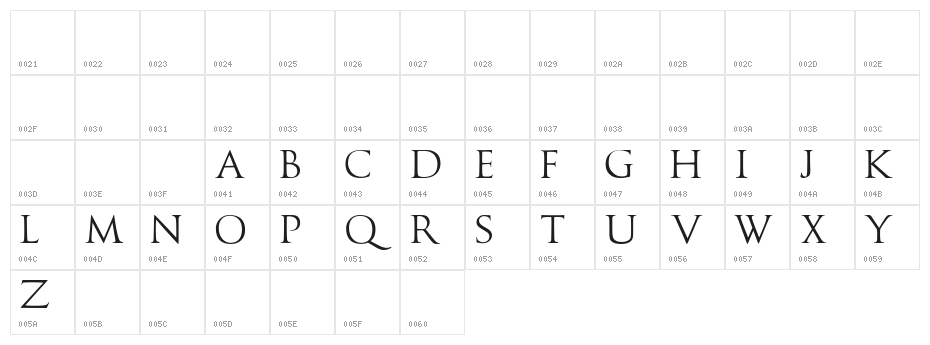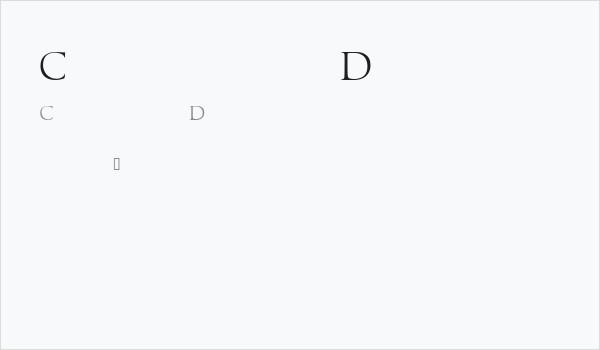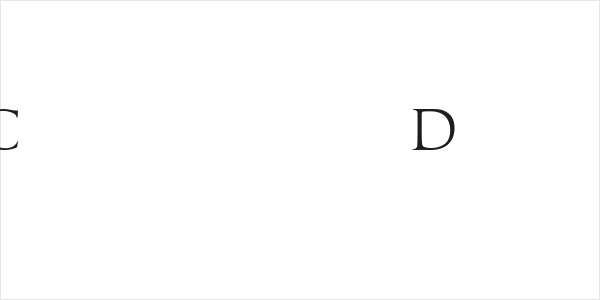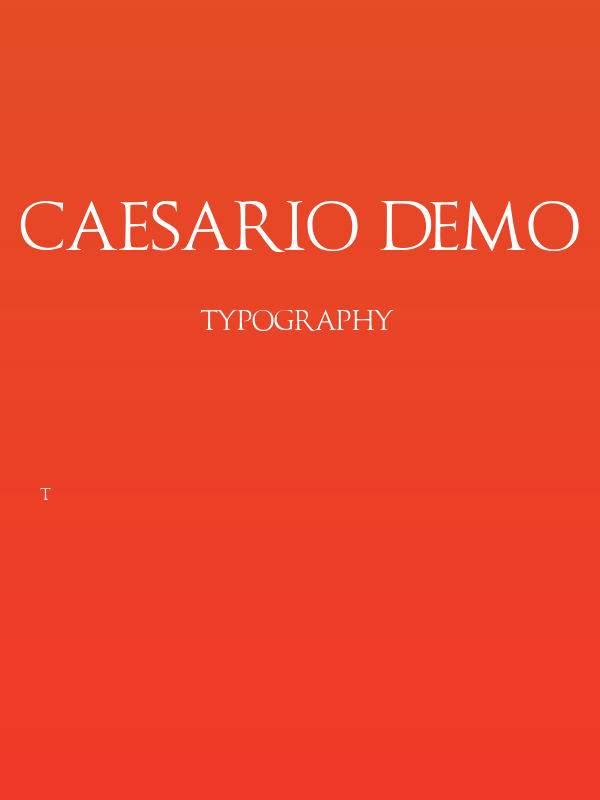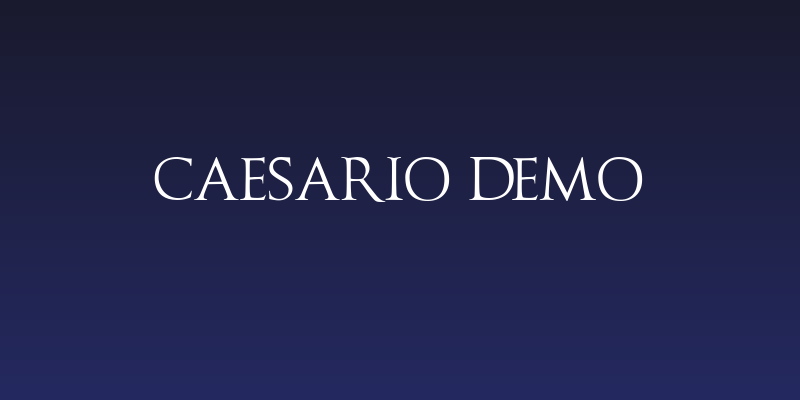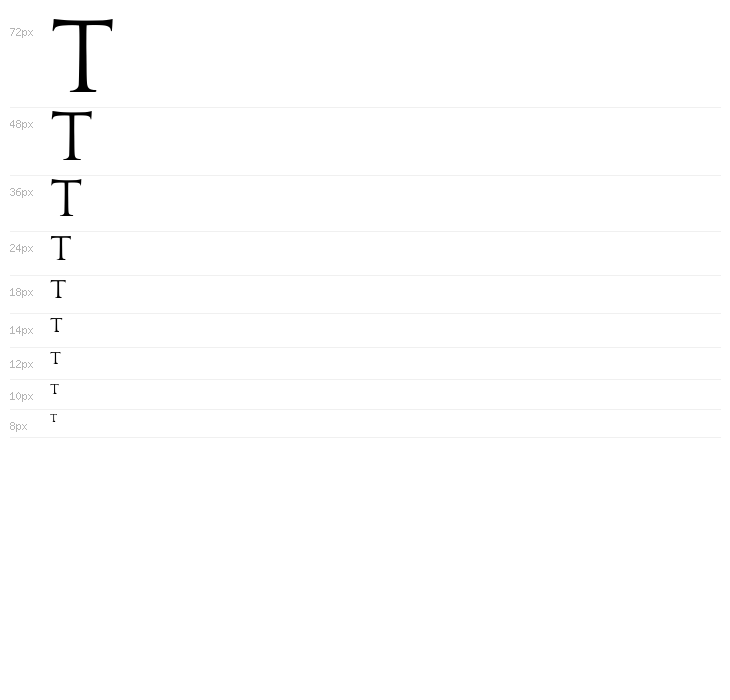
Caesario Demo Font
Caesario Demo Description
This font exhibits a classic serif style with elegant, elongated strokes and subtle curves that give it a sophisticated and timeless appearance. The serifs are pronounced, adding a touch of formality and tradition. The overall design is balanced, with consistent stroke widths that provide a sense of uniformity and readability. The characters are well-spaced, ensuring clarity and legibility even at smaller sizes. This font is ideal for projects that require a touch of elegance and refinement, such as formal invitations, book titles, or high-end branding materials.
| Use Case | Headlines, Editorial design, Formal invitations |
| Proposed Projects | Ideal for formal invitations, book titles, high-end branding, and editorial design. |